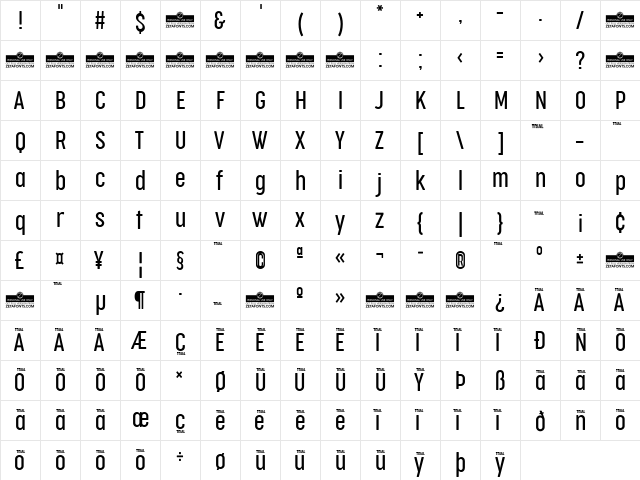
Cocogoose Compressed Trial Light
| Foundry | Zetafonts |
| Designer | Cosimo Lorenzo Pancini |
Design Context for Cocogoose Compressed Trial Typeface
Cocogoose Compressed Trial takes a measured approach to typography — its balanced proportions and neutral character make it a reliable workhorse for both digital and print work. Its slender proportions lend an understated elegance to any composition.